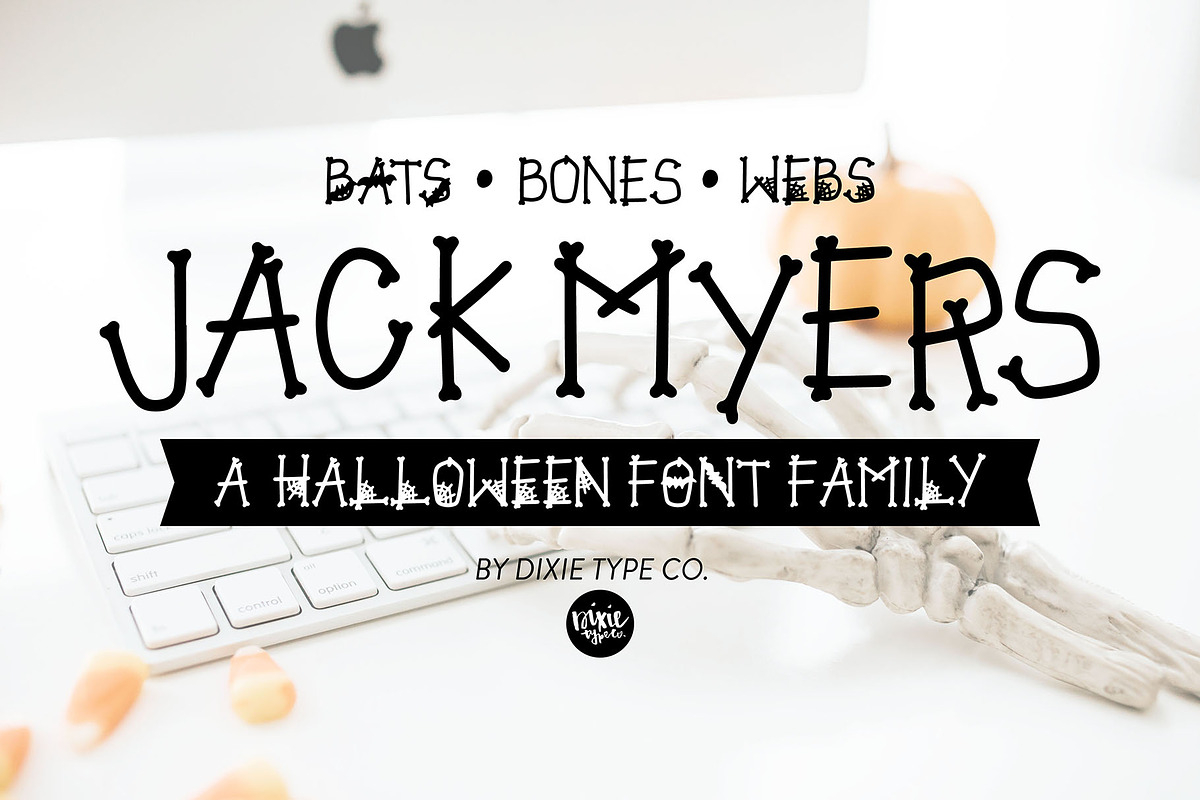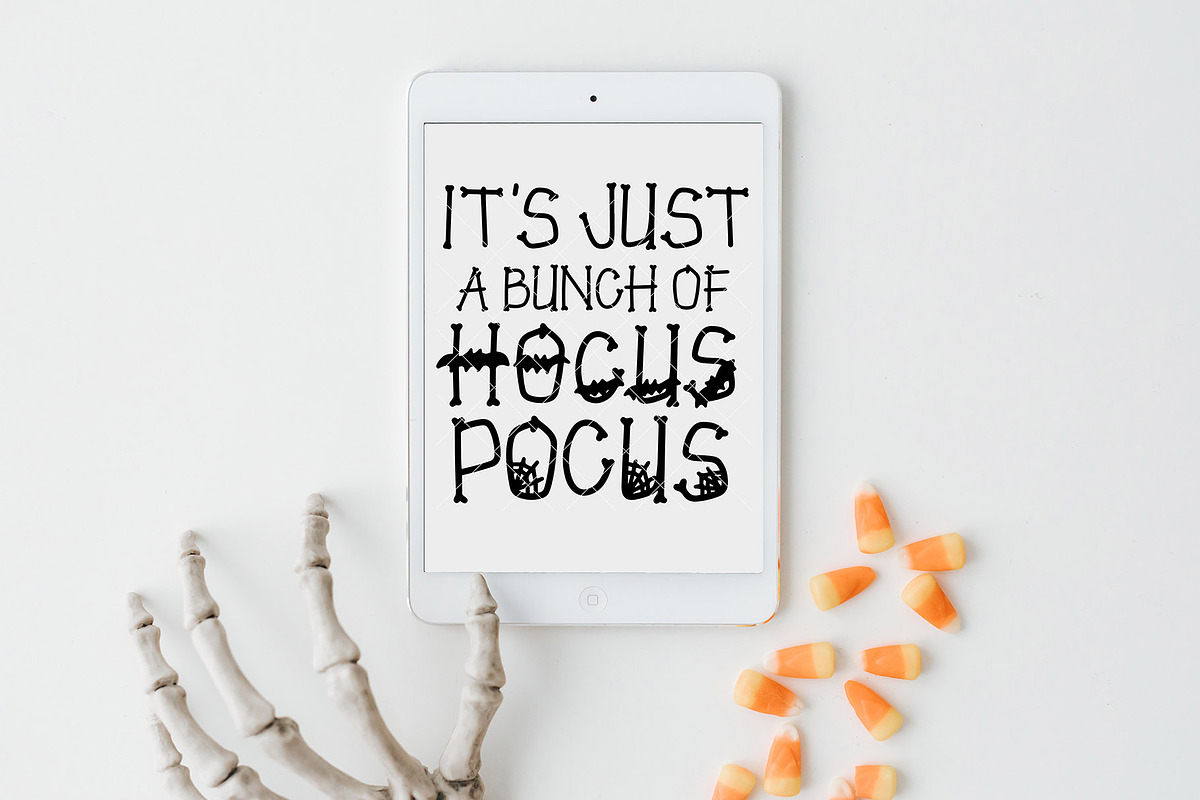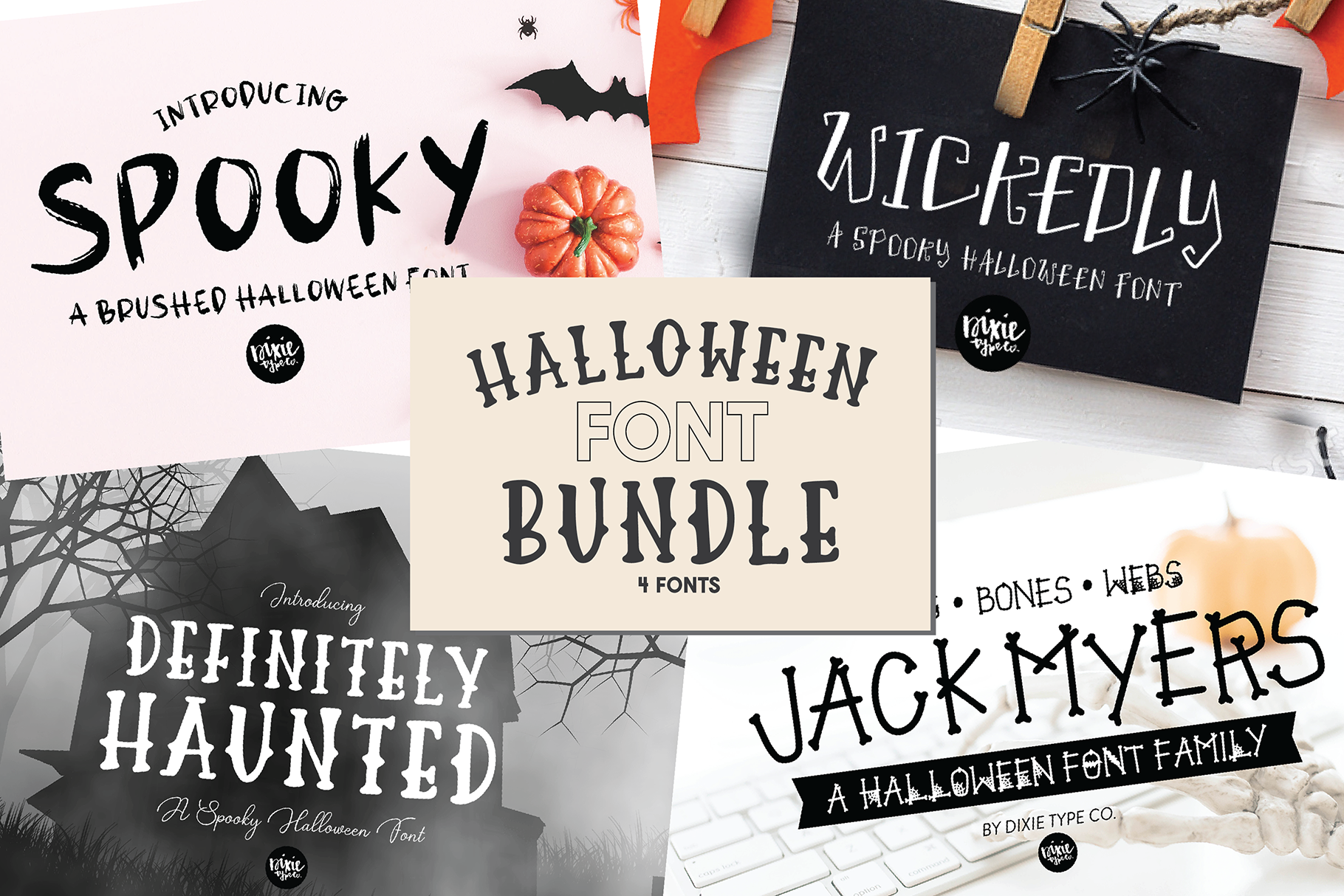
Halloween Font Bundle - .OTF Fonts
Grab these 4 installable HALLOWEEN font families in one download. These fonts were all hand lettered.
Please note that "Spooky" is not a cuttable font.